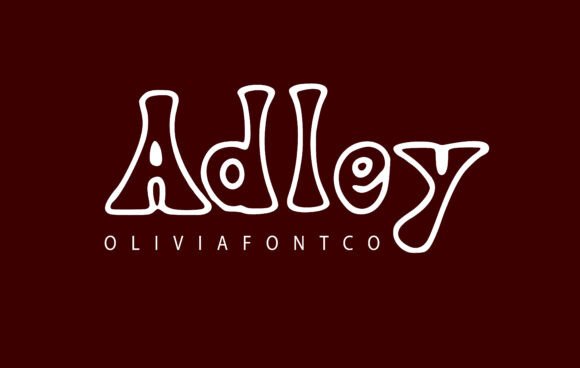
Introducing Adley Font: The Ultimate Handwritten Font with a Romantic Touch
In the world of typography, a good font can make all the difference in elevating your creative project from ordinary to extraordinary. If you’re looking for a font that exudes romance, elegance, and a touch of whimsy, look no further than Adley Font. This authentic handwritten font is expertly designed to capture the hearts of designers and crafty enthusiasts alike, making it a true favorite among typography enthusiasts.
The Story Behind Adley Font
Adley Font is more than just a collection of letters and symbols; it’s a carefully crafted tool designed to bring your creative ideas to life. With its romantic touch and fluid strokes, this font is perfect for those who want to add a personal and emotional touch to their designs. Whether you’re working on a wedding invitation, a social media post, or a branding project, Adley Font is the perfect choice.
What Makes Adley Font Stand Out?
So, what sets Adley Font apart from other fonts out there? Here are a few key features that make it a standout:
- Authentic Handwritten Style: Adley Font boasts an authentic handwritten style that is both elegant and approachable. Its unique strokes and imperfections give it a personal touch that’s hard to replicate with generic fonts.
- Romantic Touch: The font’s romantic touch is perfect for designs that require a touch of whimsy and elegance. Whether you’re creating wedding invitations, romantic social media posts, or branding materials for a luxury brand, Adley Font has got you covered.
- Legibility: One of the most important features of any font is legibility, and Adley Font delivers on this front. Its clear and readable design makes it perfect for use as both title and body text.
- Versatility: Adley Font is incredibly versatile and can be used for a wide range of design projects. From magazine headlines to social media posts, branding materials to wedding invitations, this font can do it all.
Perfect for a Variety of Design Projects
Adley Font’s versatility makes it perfect for a wide range of design projects. Here are a few ideas to get you started:
- Magazine Headlines: Add a touch of elegance and sophistication to your magazine headlines with Adley Font. Its romantic touch and fluid strokes make it perfect for creating eye-catching headlines that draw readers in.
- Social Media: Take your social media game to the next level with Adley Font. Use it to create eye-catching posts, stories, and captions that showcase your brand’s personality and style.
- Branding: Create a lasting impression with Adley Font. Its unique and elegant design makes it perfect for use in branding materials such as logos, business cards, and letterheads.
- Wedding Invitations: Make your wedding invitations truly special with Adley Font. Its romantic touch and whimsical design make it perfect for creating beautiful and memorable invitations.
- Cards and More: From greeting cards to postcards, Adley Font is the perfect choice for any project that requires a personal touch.
Tips for Using Adley Font Effectively
To get the most out of Adley Font, here are a few tips to keep in mind:
- Use it Sparingly: While Adley Font is beautiful, it’s best used sparingly. Use it for headlines or key phrases to draw attention and create emphasis.
- Experiment with Colors: Adley Font looks great in a variety of colors. Experiment with different hues and shades to find the perfect combination for your design.
- Mix and Match: Don’t be afraid to mix and match Adley Font with other fonts. Its unique design makes it perfect for pairing with sans-serif fonts for a striking contrast.
In conclusion, Adley Font is a true gem in the world of typography. Its authentic handwritten style, romantic touch, and versatility make it the perfect choice for a wide range of design projects. Whether you’re a seasoned designer or a crafty enthusiast, Adley Font is sure to become a favorite in your collection. So why wait? Download Adley Font today and take your creative projects to the next level!